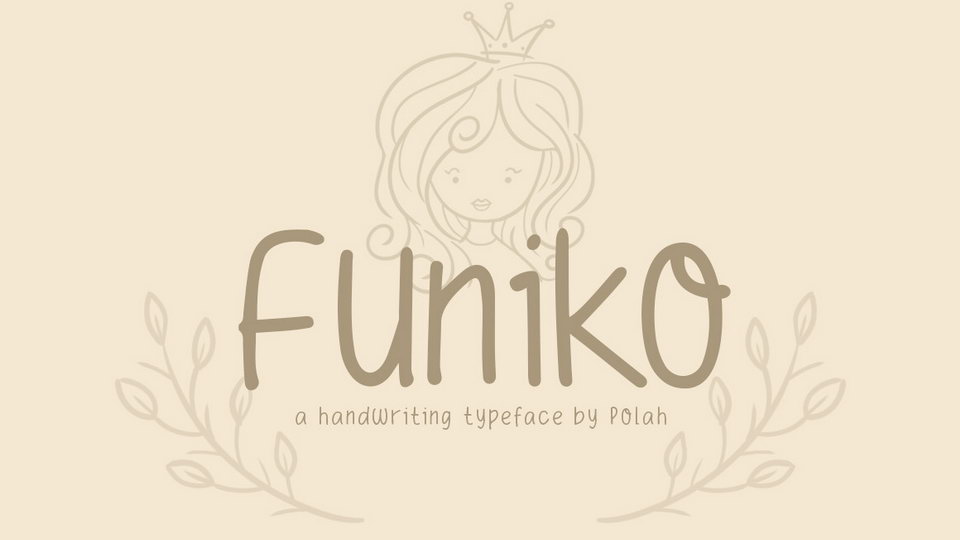
Download Funiko font, a cute and friendly handwritten sans. It’s sutable for funny messages, crafts, kids products, t-shirt prints, social media posts .
Designer: Polah Khurasan